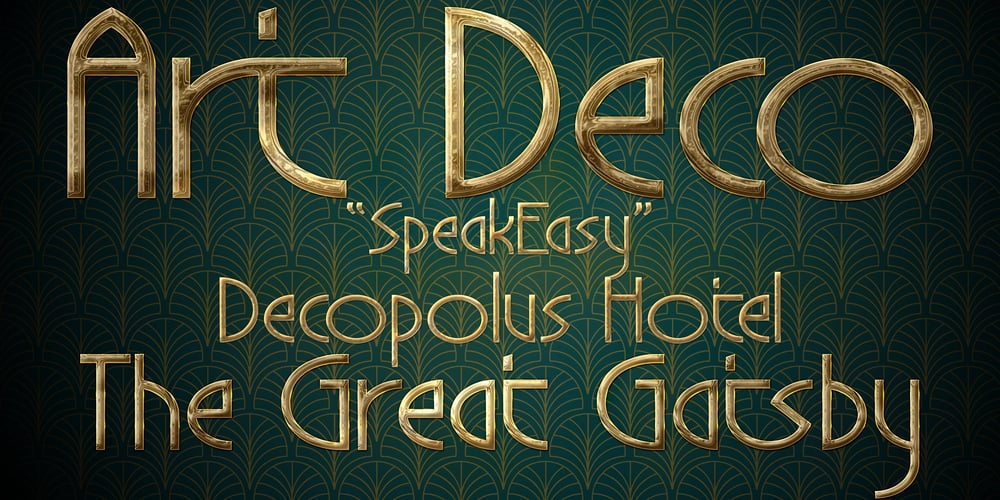
DT Decopolis Hotel Font Family was designed by Scott Spensley and published by Dragon Tongue Foundry. DT Decopolis Hotel contains 1 styles and family package options. DT Decopolis Hotel is a sharply stylised Sans Serif Art Deco font, crafted with a wide oval, dissected and contrasted against precision straight edges and pixel sharp corners. The Capitals have a raised centre line, aligning with the tall lowercase height.A nostalgic looking Art Deco font referencing the 1920’s to 1940’s during the Golden age of Hollywood, Art Moderne and the rise of luxury items from 100 years ago. Totally geometric with great variations in glyph widths designed to attract attention and create Headlines. DT Decopolis Hotel is a display font with clean simple lines, intended to create a sleek elegance that displays the sophistication of a by-gone era.With both upper and lower-case, this font is Great for Logotypes, Headlines, Strap-lines and smaller descriptive text to give that authentic Art Deco look and feel.Evoking the Art Deco Era of the Great Gatsby, glamorous Hotels and Movie Theatres of the period. Packed with over 500 glyphs, you will enjoy the uniqueness of this typeface!Inspired by 1920’s Art Deco, Artisual Deco is a 2020’s celebration dedicated to the hundred-year-old history of geometric design.This retro typeface will be the perfect fit for your logo designs or graphic project. DT Decopolis Hotel is a perfect choice for designs with a luxurious but minimalist look and feel. Useful in headlines, logos or product packaging it will match perfectly against sloped script fonts. The typeface works perfectly in both All-Caps or full Upper and lower case. Use with Contextual/Standard Ligatures turned on when possible. to allow the letters to match their neighbours. This will also enable larger Caps for the first letter of a new sentence.